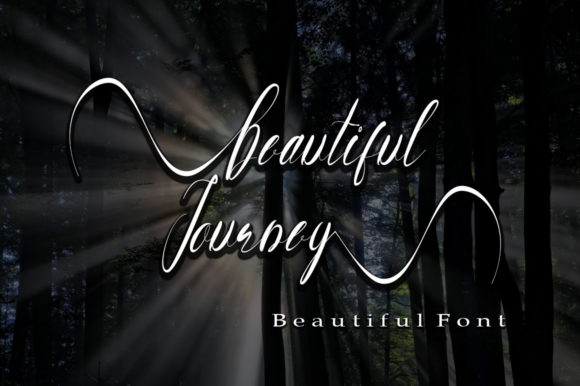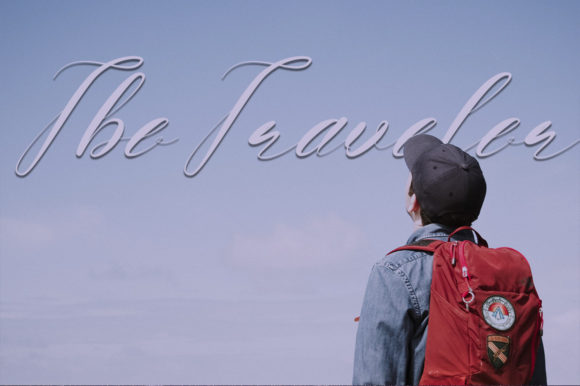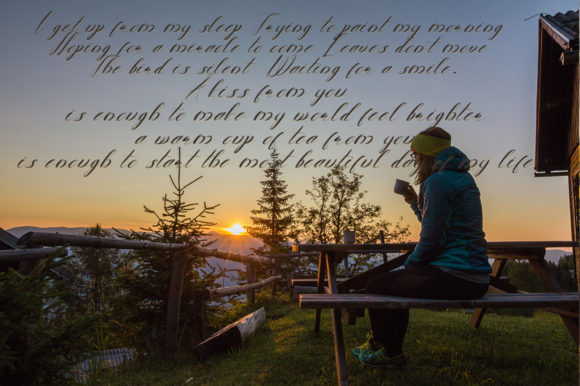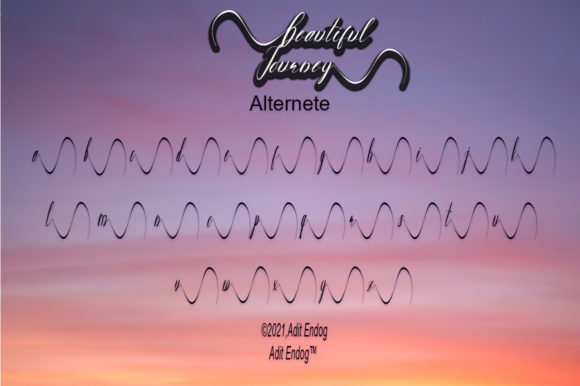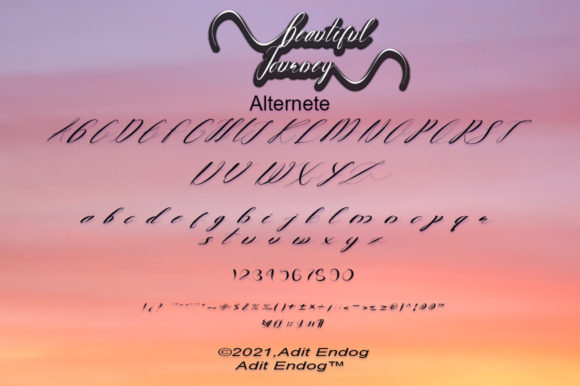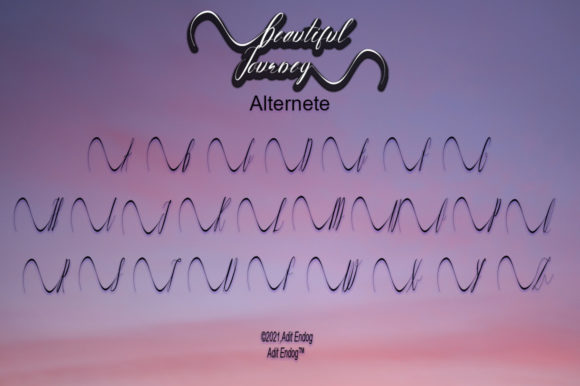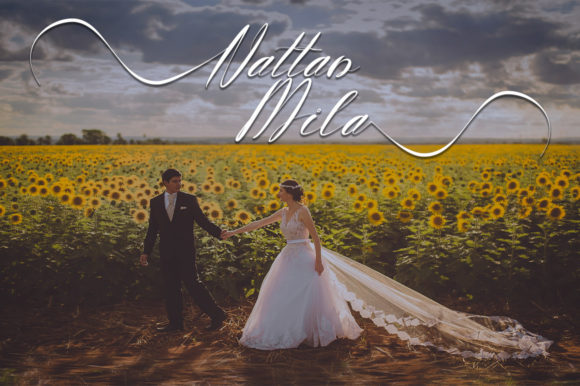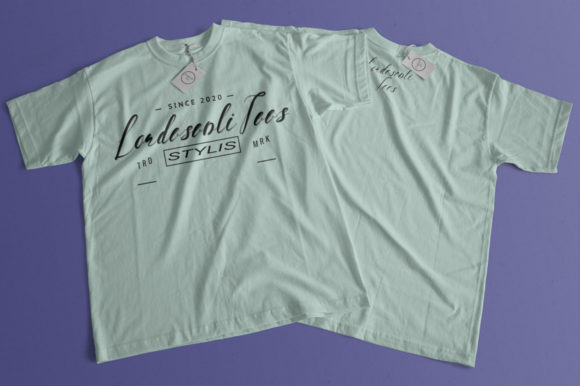
HomeScript FontsBeautiful Journey Font Script Fonts Beautiful Journey Font FacebookXPinterestWhatsApp 1 of 8 Beautiful Journey Font Poster 2... Beautiful Journey Font Poster 3... Beautiful Journey Font Poster 4... Beautiful Journey Font Poster 5... Beautiful Journey Font Poster 6... Beautiful Journey Font Poster 7... Beautiful Journey Font Poster 8... About Beautiful Journey Font Beautiful Journey font is suitable for hand design. DOWNLOAD NOW People also explored Label Creator Font Garvillia Font Melindael Font Faber Gotik Font Blanton Script Font Share Now Font Bestie Font Hello Ayu Font Homestay Font 352 0 TagsBeautiful Journey Font Previous articleMagical Morotai FontNext articleBachtiya Font LEAVE A REPLY Cancel reply Comment: Please enter your comment! Name:* Please enter your name here Email:* You have entered an incorrect email address! Please enter your email address here Website: Save my name, email, and website in this browser for the next time I comment. Personal Use Free Critical Personal Use Free Read more about this font Boldist Personal Use Free Read more about this font Loving You Personal Use Free Read more about this font Monofonto Personal Use Free Read more about this font BLOG Top 7 Google Fonts Alternatives for Faster and Privacy-Friendly Web Design (2025) Top 7 Google Fonts Alternatives for Faster and Privacy-Friendly Web Design (2025) When it comes to web typography, Google Fonts has long been the go-to... Fonts That Capture the Spirit of New York City Free Fonts Risk: Why Free Fonts Can Be Dangerous for Designers Best Fonts for T-Shirt Design – Top 2025 Picks